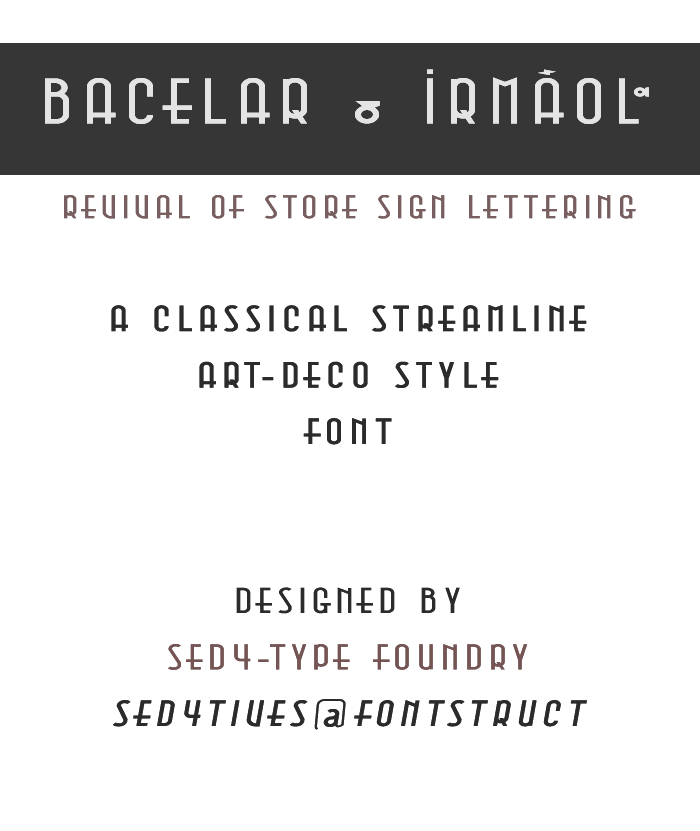
• BACELAR & İRMAO — All-caps (Majuscules) 'Art Deco' display sans
Revival of the Art-Deco lettering seen on the medical supply store sign of
"Bacelar & Irmao, Lda."— Porto, Portugal.
═══[PROCESS]════════════════════════════
I tried to keep it as faithful to the original as I could without compromising too much.
But in order to make them fit a complete typeface when doing these kind of revivals from lettering that were never intended to be a complete 'A-Z'-alphabet can sometimes be tricky not to have certain aspects get lost or slightly modified. As was also the case in this effort...
One of those specific changes for example was with the 'Capital A with tilde'.
In the original store sign the style of the tilde is fairly novel and unique. And seen in that particular situation used 'as is', its pretty self-explanatory of course, and works just fine. But viewed in isolation it is hardly recognizable as a tilde. Not to mention if it was part of a complete typeface that includes multiple accented letters. In that case I thinks it is very confusing and rather useless when it has to resamble the tilde. To overcome this issue I created a new capital letter 'A' with a more traditional and better recognizable tilde.
But obviously I had to somehow preserve that original and quirky novelty as well. So I included it into the location for the capital letter 'A' with ring above. I think it suits that spot much better to be honest. So in the end nothing really got compromised.
Original store front image.